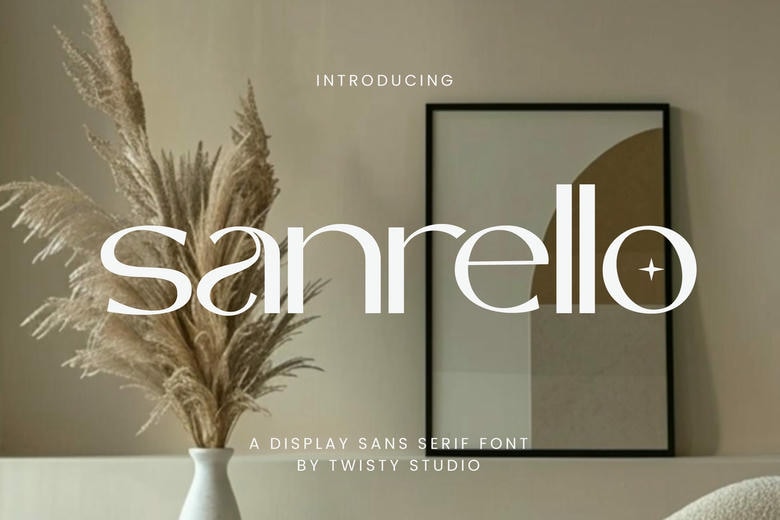
Sanrello Font
Sanrello is a modern sans-serif display font with high contrast and refined curves. Its clean lines and subtle details give it a bold, elegant look that works well for branding, editorial design, packaging, and modern logos.
Sanrello Sans Serif Font